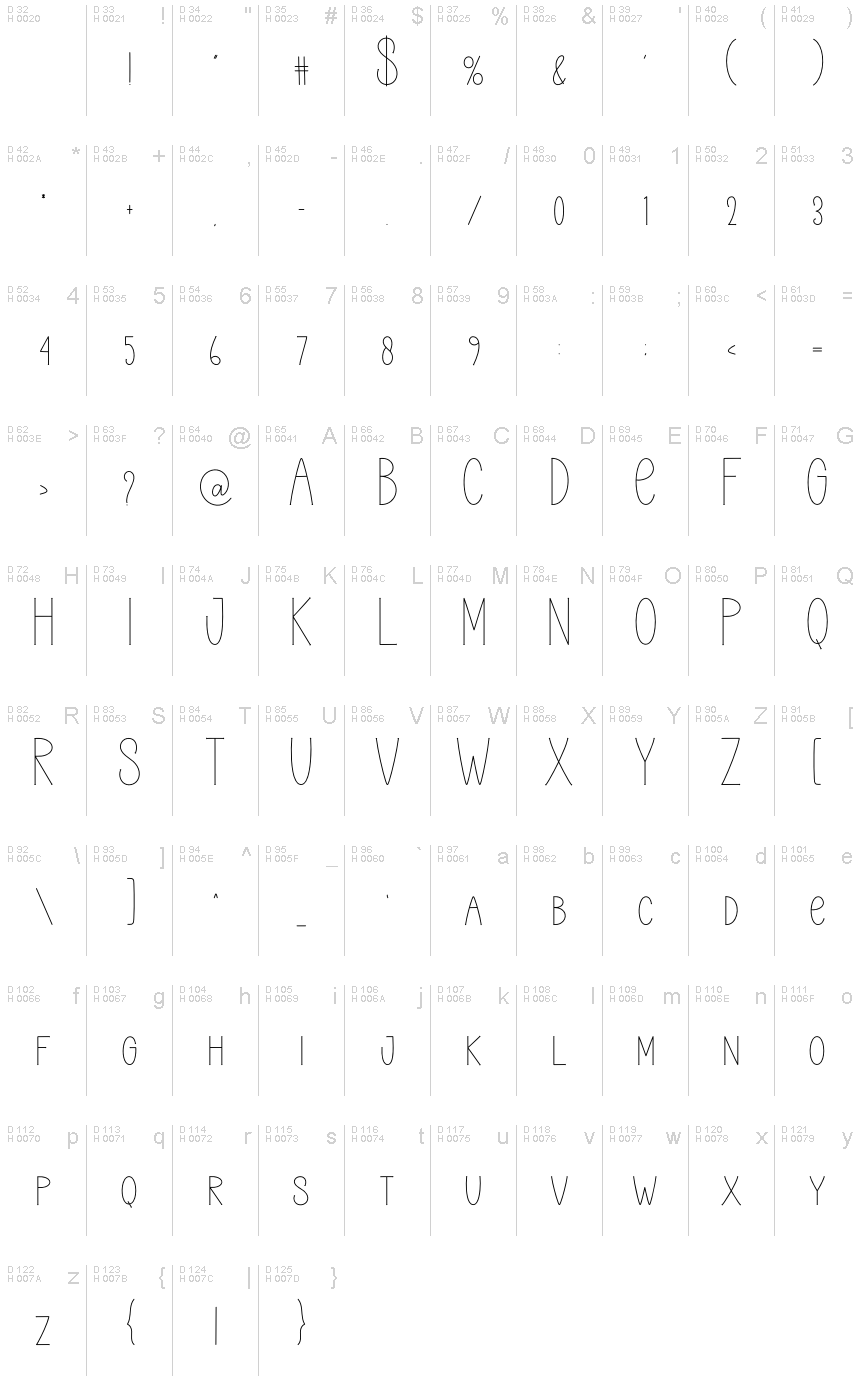
MINIMALIST WRITING
Minimalist Writing by Scratchones is a font that exudes simplicity and elegance with its handwritten charm. The strokes are light and unassuming, yet carry a distinctive condensed flow, reminiscent of graceful calligraphy done with a fine-tipped pen. This font's airy feel and personal touch bring a sense of intimacy to any project it graces.
In terms of versatility, Minimalist Writing finds its strength in settings that require an understated sophistication—think wedding invitations, boutique branding, or literary publications where the essence of the human hand is celebrated without overwhelming the senses. It's perfect for designers aiming to convey authenticity and subtlety in their work.